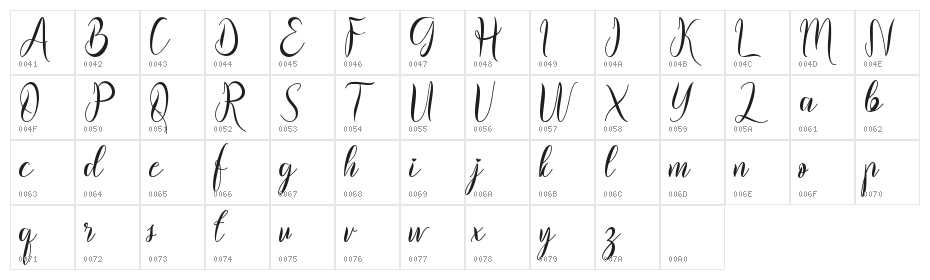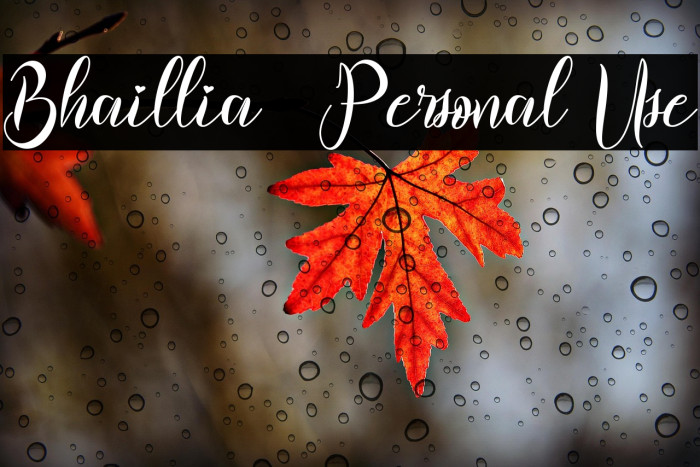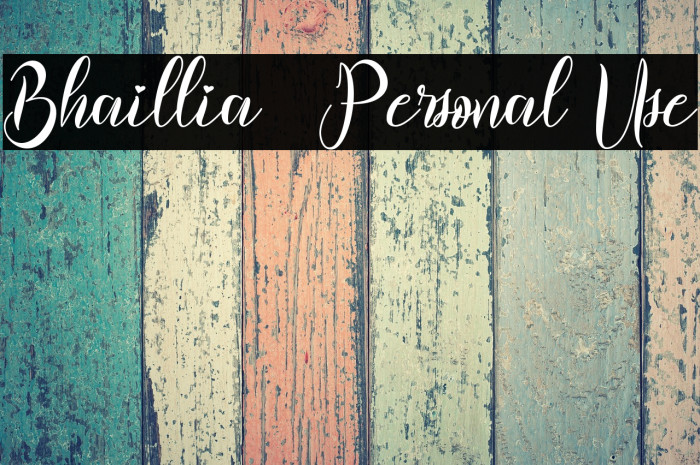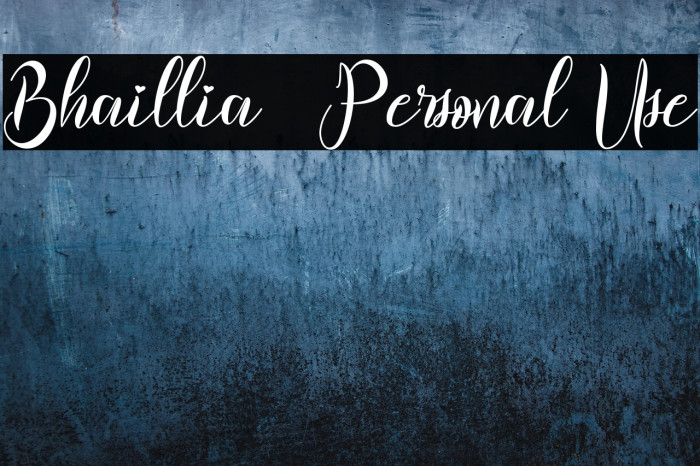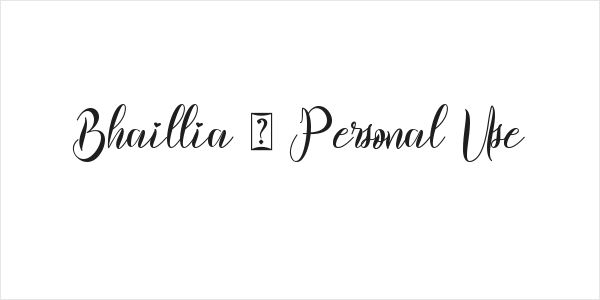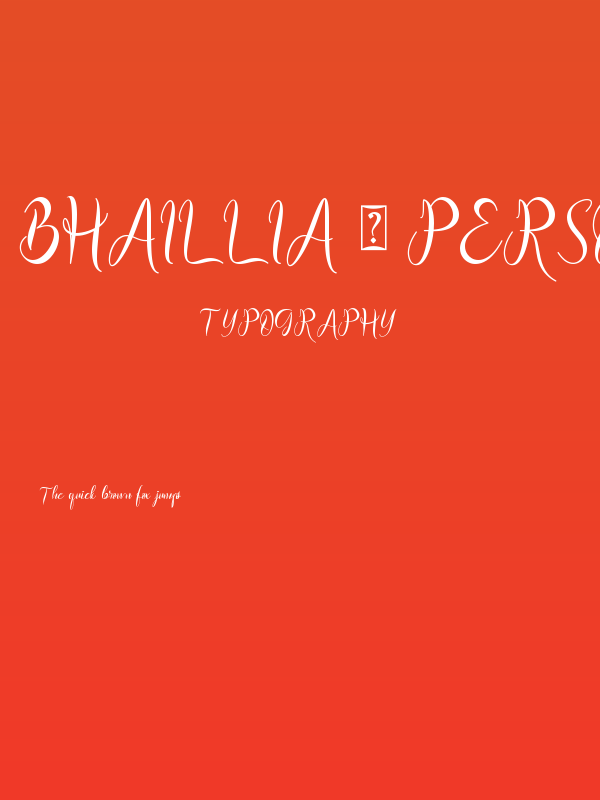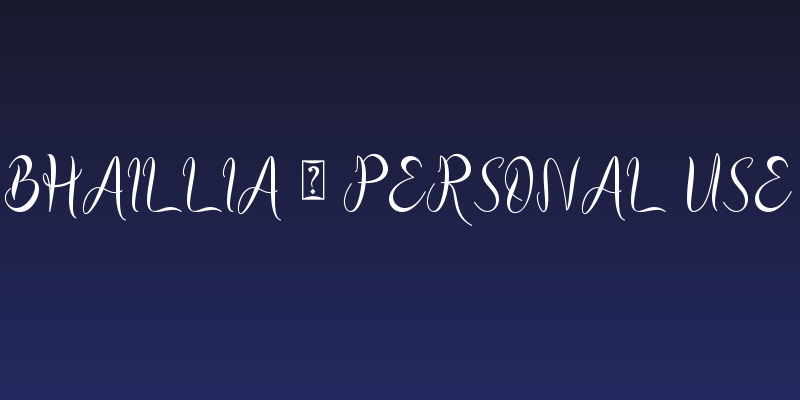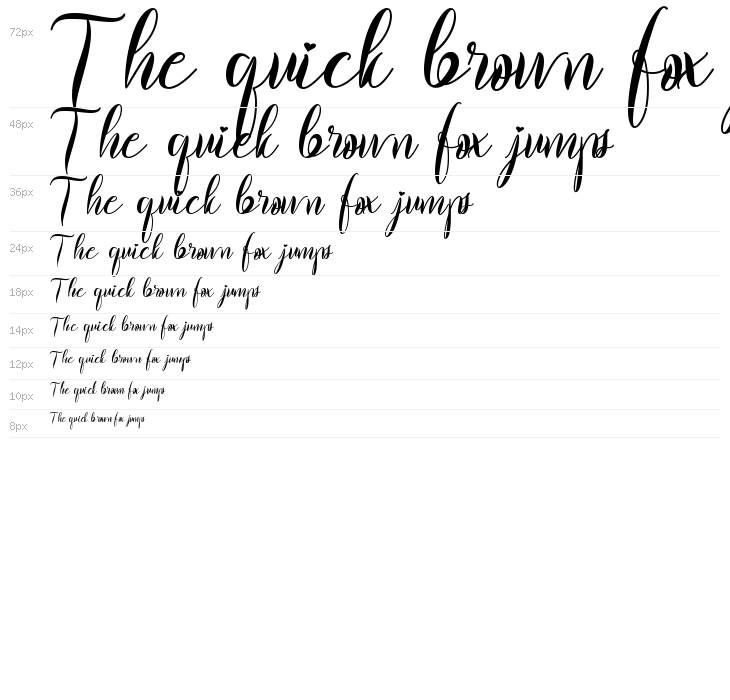
Bhaillia - Personal Use Font
Bhaillia - Personal Use Description
This font features an elegant and flowing script style that combines both uppercase and lowercase letters with a distinct flair. The characters are designed with sweeping curves and delicate strokes, giving it a sophisticated and artistic appearance. The uppercase letters are particularly ornate, with extended lines and loops that add a touch of drama. The lowercase letters maintain a consistent style, with smooth transitions and a slightly more compact form. This font is ideal for projects that require a personal and expressive touch, such as invitations, greeting cards, and branding materials. Its unique style makes it stand out, while still maintaining readability.
| Proposed Projects | Ideal for invitations, greeting cards, branding, and artistic projects. |